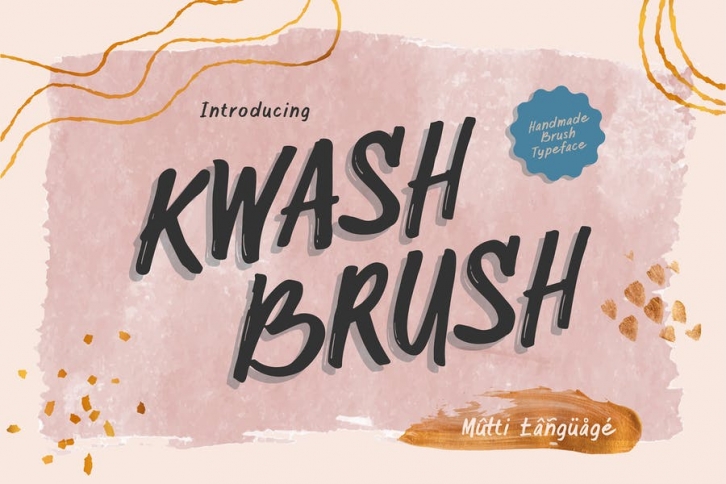
Kwash Brush!
A handmade brush typeface. Inspired by brush ink stroke character, Kwash Brush makes the messages you write have a more personal touch.
This handwritten brush font containing upper & lowercase characters, numerals, and punctuation. Also, support multi-language (Latin simple). This brush font can be applied to any kind of purpose, from handwritten quotes, packaging merchandise, branding projects, etc.